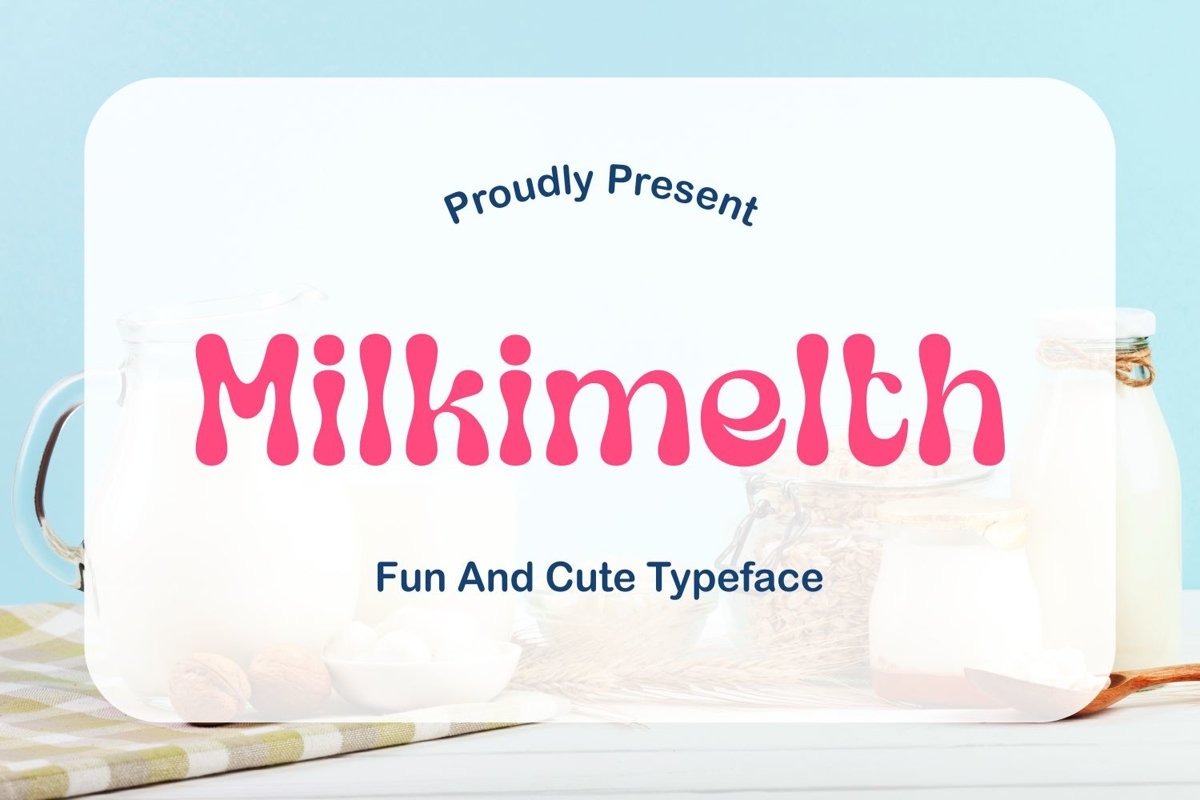
Milkimelth is sans serif display come with fun and casual themes. This font is round corner styles with unique weight shape. It matches applies in some designs such as the logotype, brand, packaging, quotes, poster, shirt, book, headline and more custom design. The features uppercase, lowercase, numeral, punctuation & symbol, multilingual support, PUA encoded (fully accessible without additional design software). What includes : • Milkimelth.ttf • Milkimelth.otf